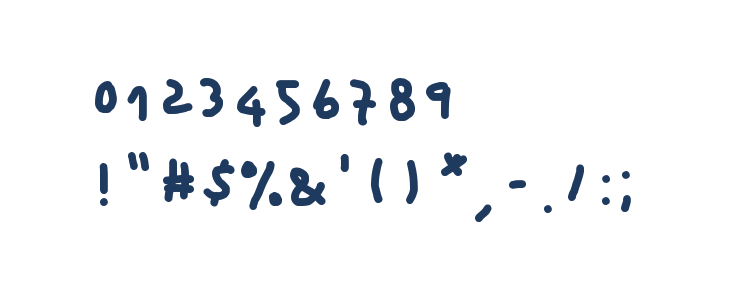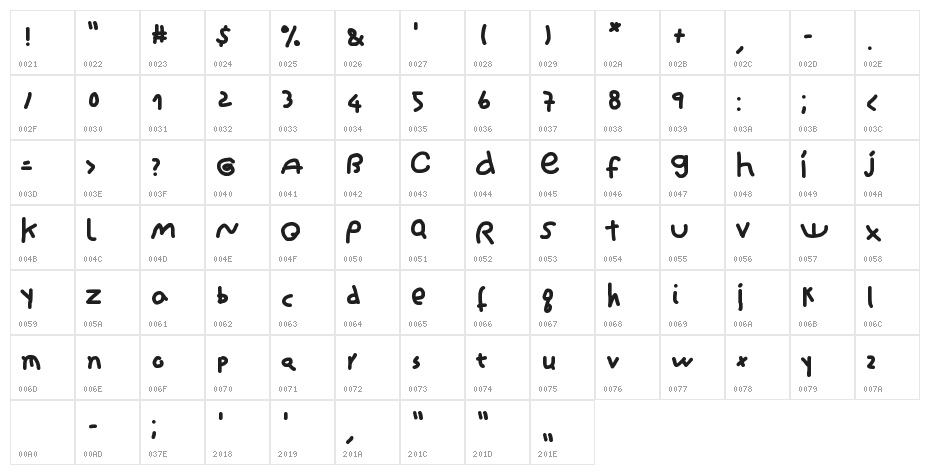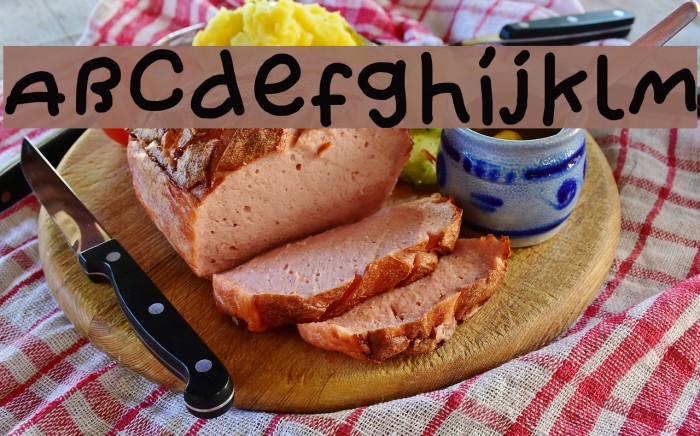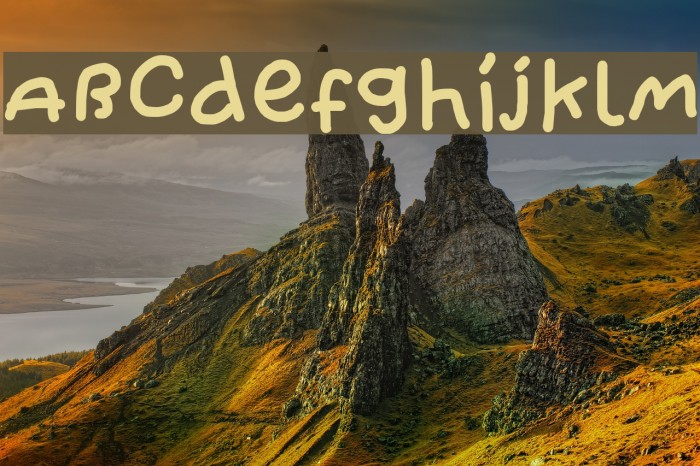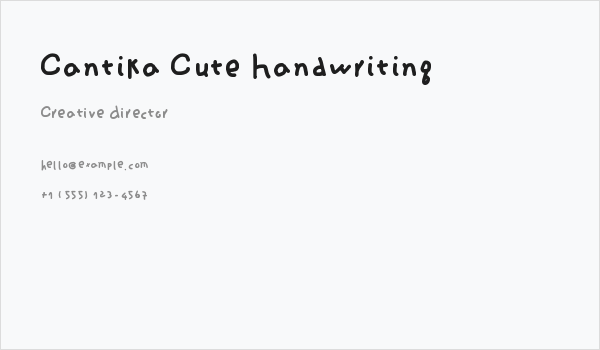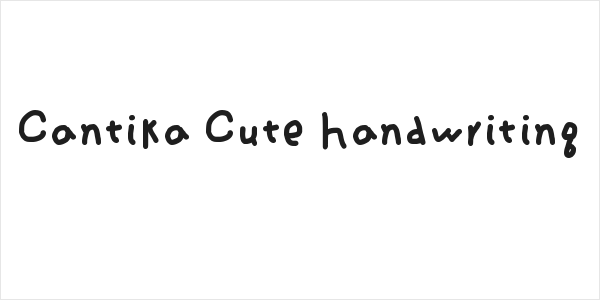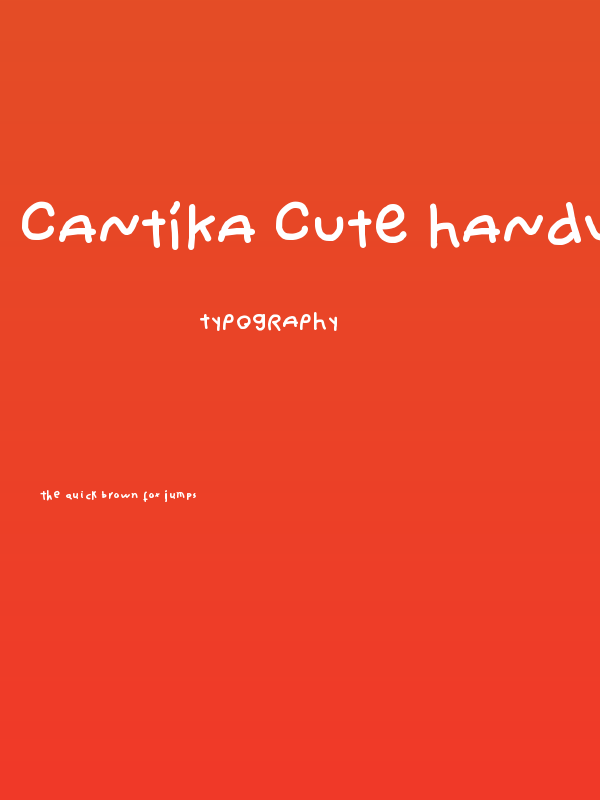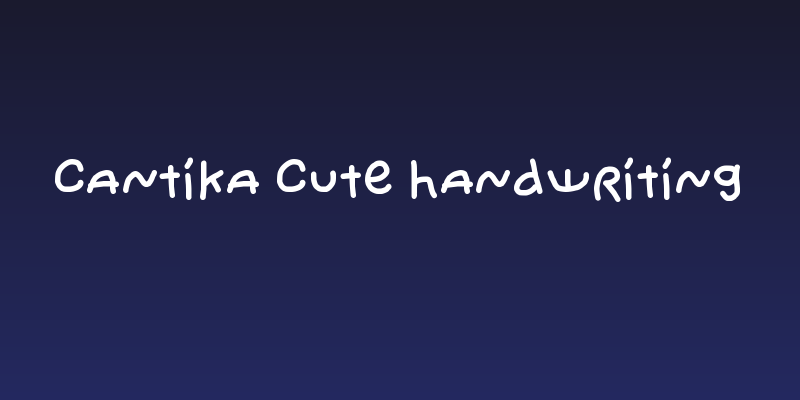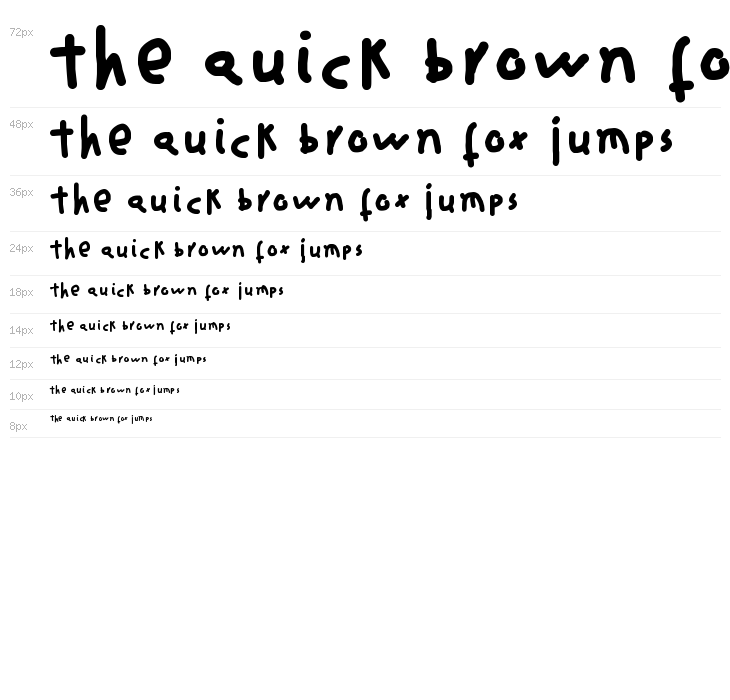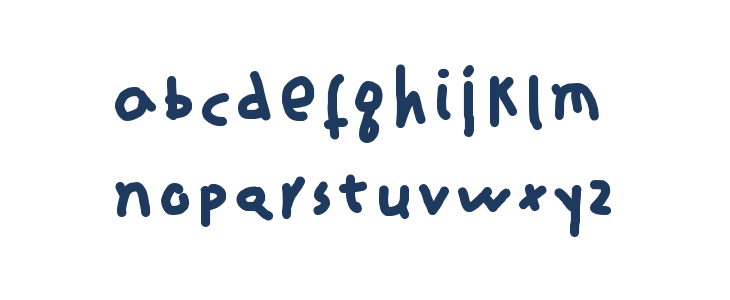
Cantika Cute Handwriting Font
Cantika Cute Handwriting Description
This playful and whimsical font features a handwritten style that exudes a sense of fun and creativity. The characters are rounded and slightly irregular, giving them a charming, childlike appearance. The uppercase and lowercase letters maintain a consistent style, with a casual and friendly feel. The numbers and special characters are equally playful, making this font ideal for projects that require a touch of personality and warmth. Its unique style makes it stand out, perfect for capturing attention in a lighthearted manner.
| Proposed Projects | Ideal for children's books, greeting cards, playful branding, and creative projects that require a fun and friendly touch. |